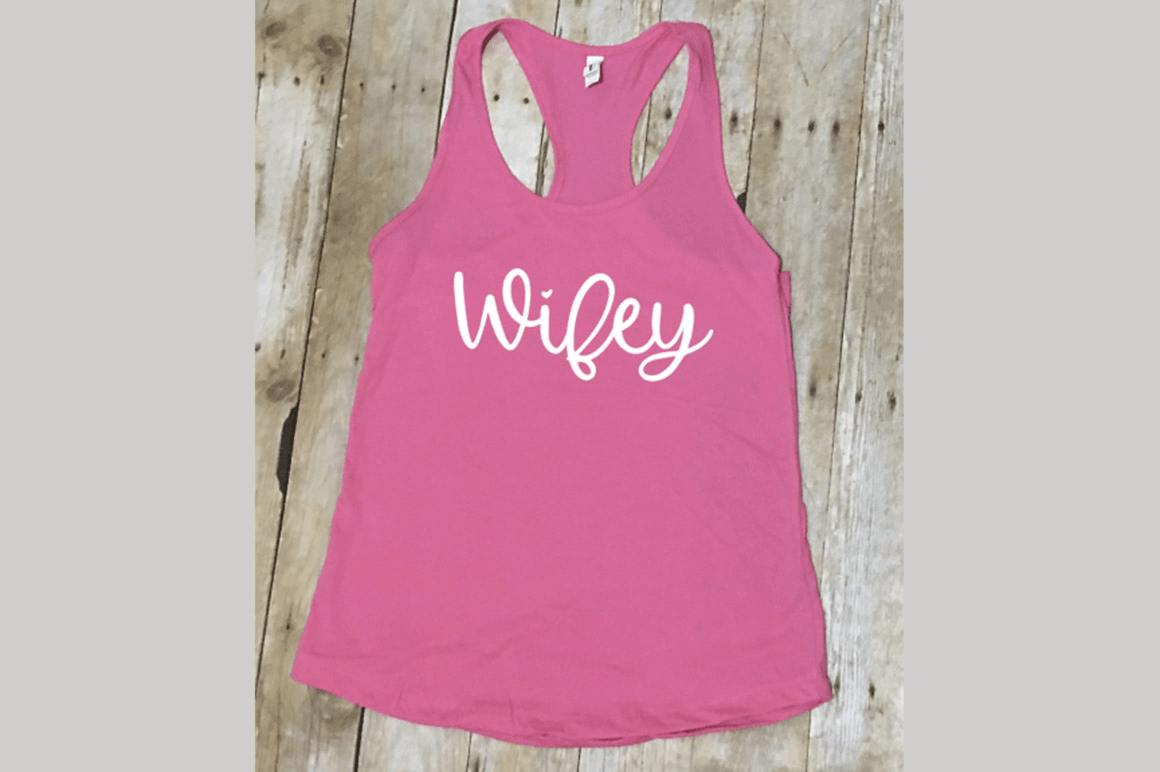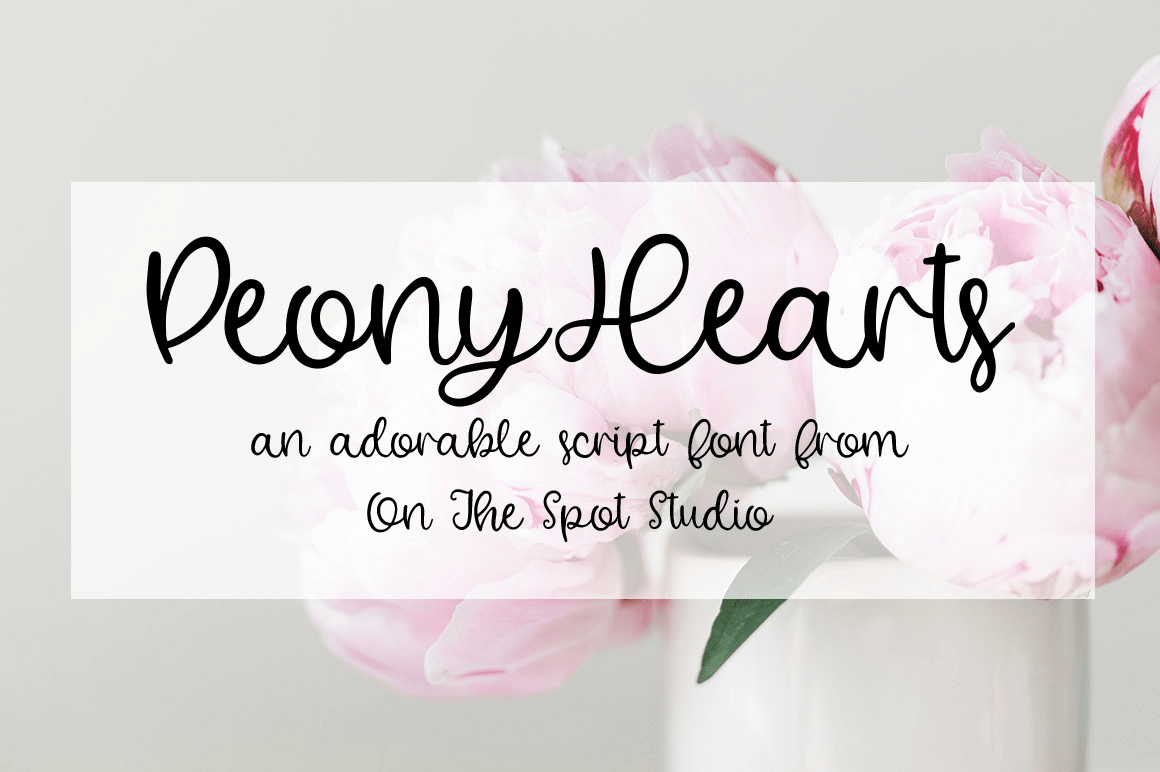
HomeFont BrosScripts: CasualPeony Hearts Scripts: Casual Peony Hearts FacebookXPinterestWhatsApp 1 of 2 About Peony Hearts Meet the lovely Peony Hearts! An adorable new font from On The Spot Studio with cute heart dotted letters and punctuation! More preview images coming soon! Files included : OTF  DOWNLOAD ON FONT BROSThis font is sold and delivered by Font Bros. Font Canyon may earn a commission if you buy through this link. People also explored Blankco Outline Black Font Cookie Fancy Font Entade Script Font Subace Font Vickill Font Tighnari Slim Font Fragile Font Coffey Font Fox School Font 282 0 TagsPeony Hearts Font Previous articleObanNext articleThe Salvador LEAVE A REPLY Cancel reply Comment: Please enter your comment! Name:* Please enter your name here Email:* You have entered an incorrect email address! Please enter your email address here Website: Save my name, email, and website in this browser for the next time I comment. Personal Use Free Mini Story Personal Use Free Read more about this font Solaria Personal Use Free Read more about this font Eric”s Personal Use Free Read more about this font My Shine Personal Use Free Read more about this font BLOG Fonts That Capture the Spirit of New York City New York City is more than just a place—it’s an experience, a rhythm, a visual language... Best Fonts for T-Shirt Design – Top 2025 Picks Best Fonts for YouTube Videos: Make Your Thumbnails Stand Out How to Install and Use Fonts on Windows, macOS, and Web Projects